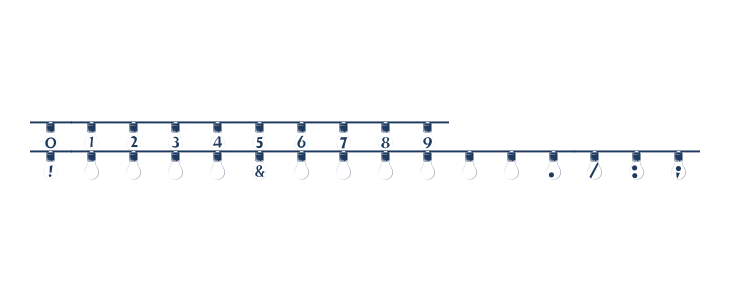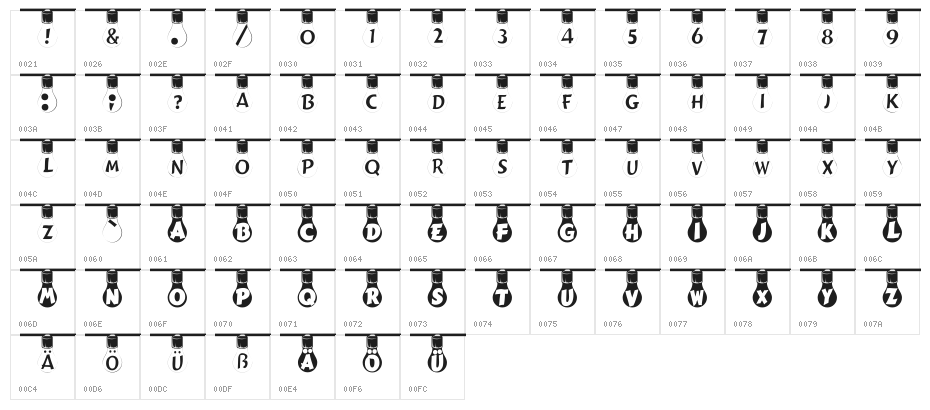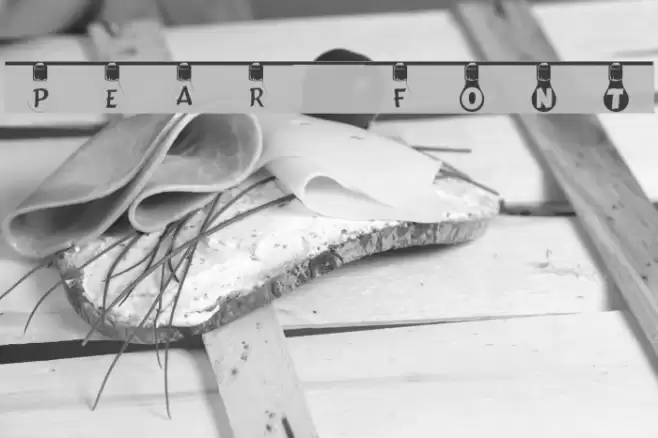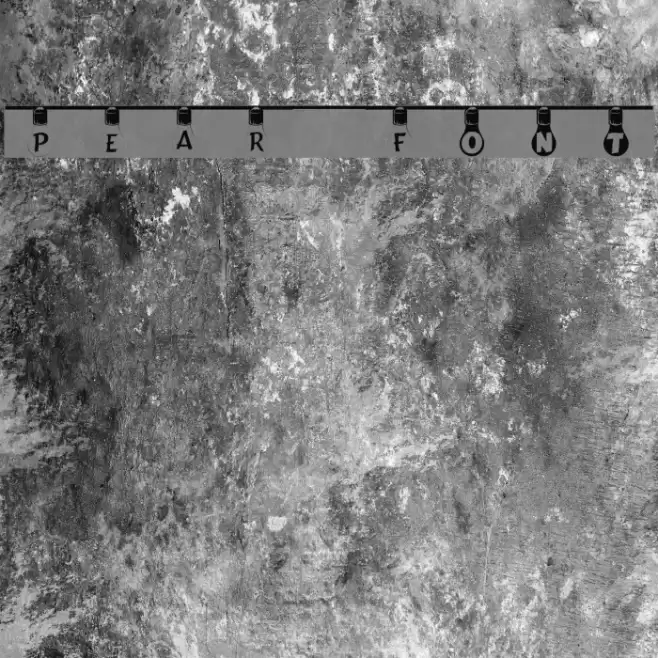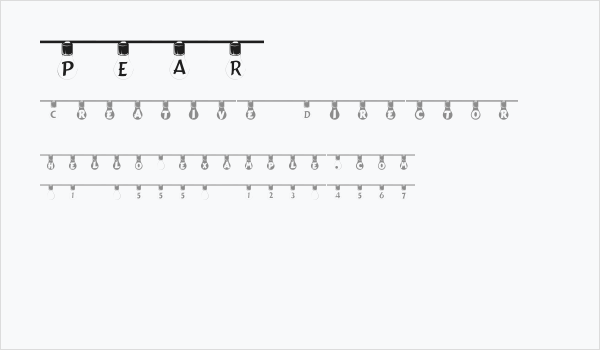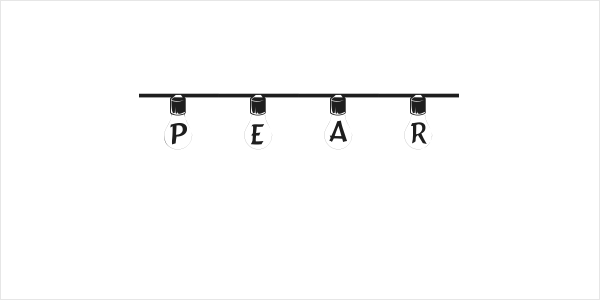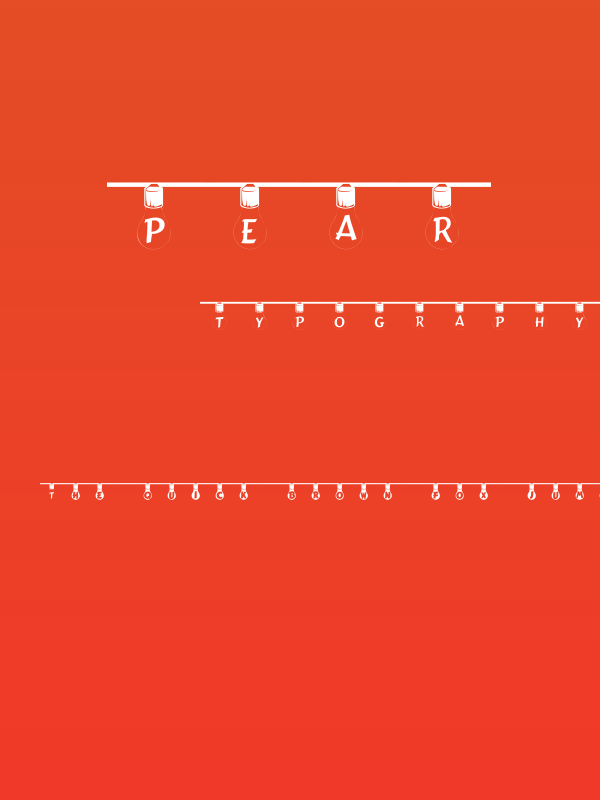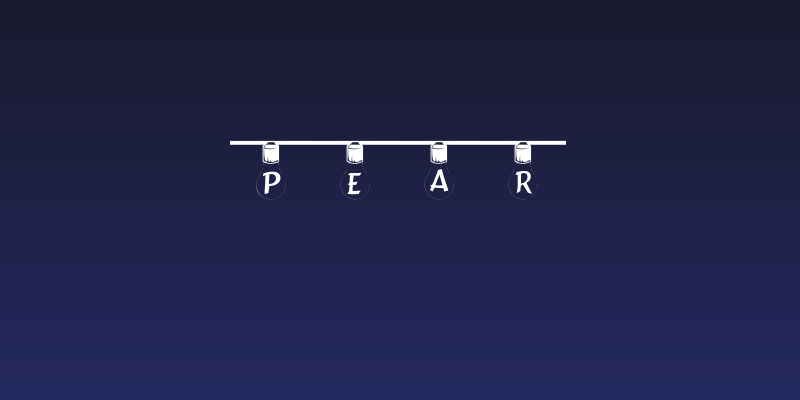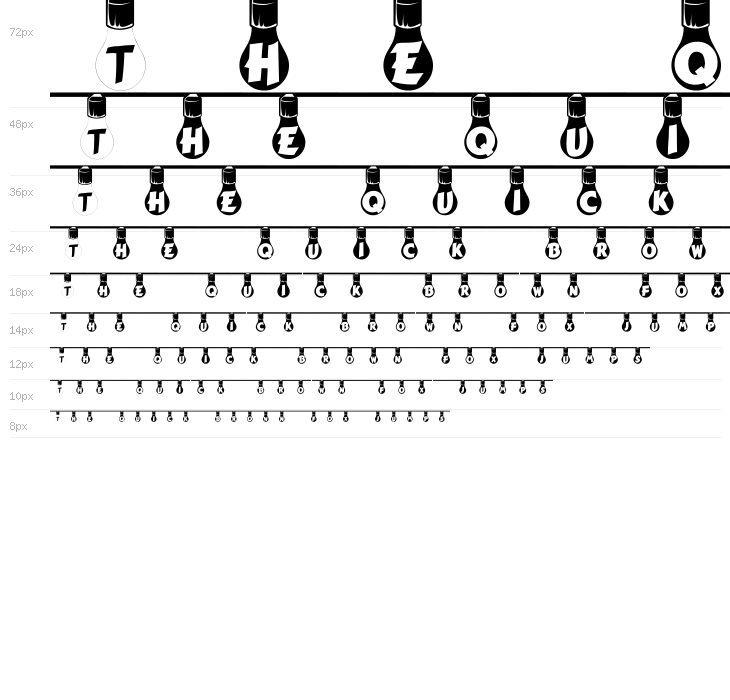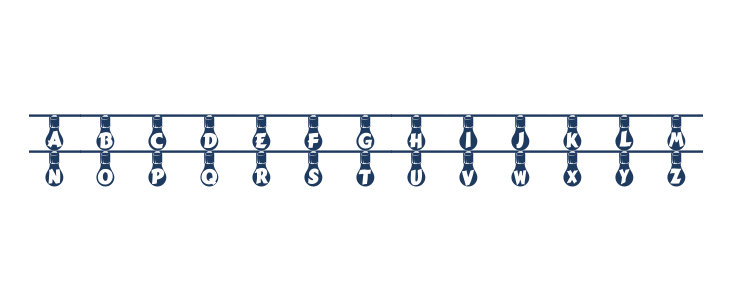
PEAR Font
PEAR Description
This font is a unique and playful decorative style where each character is encased within a light bulb shape. The uppercase and lowercase letters, as well as numbers and special characters, are all designed to fit within this bulb motif, giving a whimsical and creative appearance. The characters themselves are bold and clear, ensuring readability despite the decorative encasement. This font is ideal for projects that require a fun and eye-catching design element, such as party invitations, children's books, or creative branding materials.
| Proposed Projects | Ideal for party invitations, children's books, creative branding, and playful design projects. |